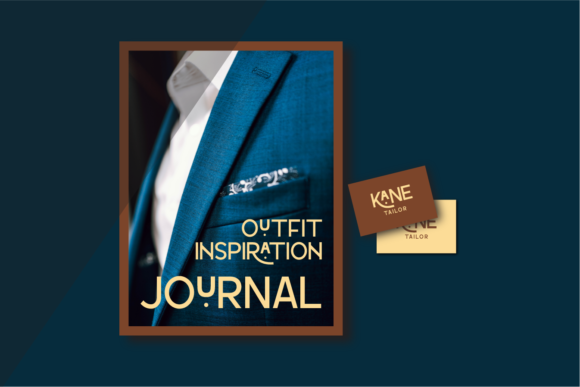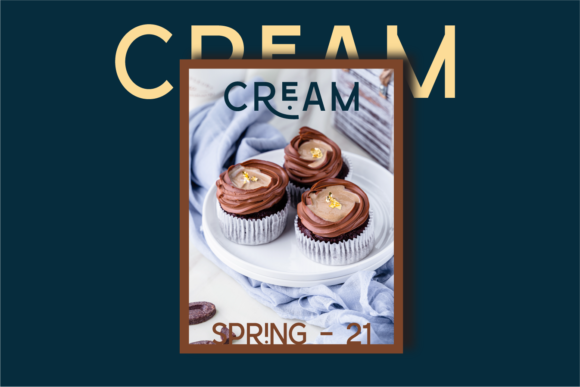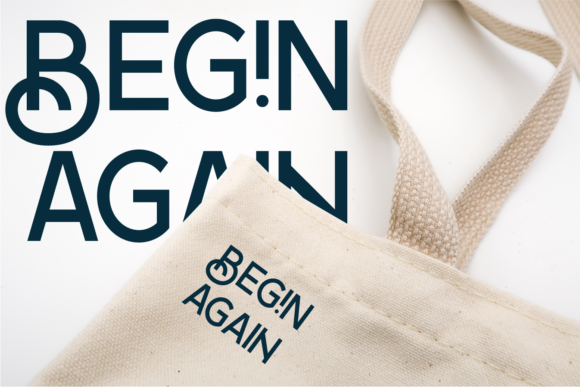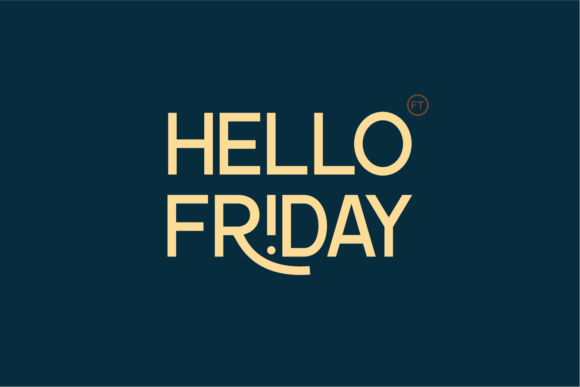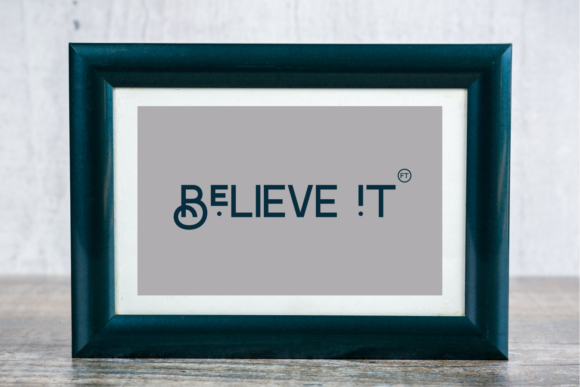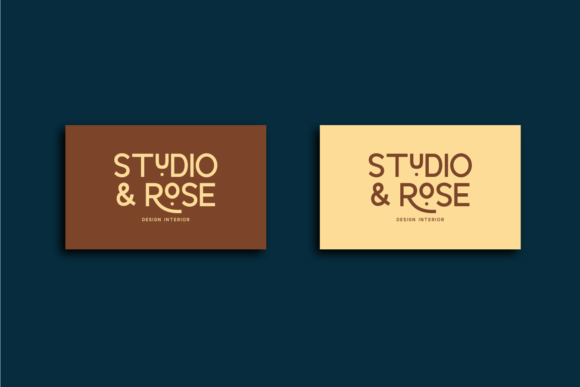
The Beriva Font: A Game-Changer for Creative Projects
Have you ever been in the middle of a design project, and suddenly, you’re stuck on finding the perfect font? I recall a particularly frustrating experience when I was working on a branding project for a local bakery. The client wanted a font that was both modern and earthy, but I just couldn’t seem to find the right fit. That’s when I stumbled upon the Beriva font, and let me tell you, it was a total game-changer! 🤩
What Makes Beriva Special?
Beriva is an organic and unique sans serif font that can easily be matched to an incredibly large set of projects. Its versatility is one of its standout features, making it perfect for a wide range of creative endeavors. Whether you’re a designer, crafter, or creative hobbyist, Beriva is sure to become a favorite in your font collection.
What I Love About Beriva ✨
- ✅ Its unique organic feel sets it apart from more traditional sans serif fonts
- ✅ The font is highly legible, even at smaller sizes
- ✅ Beriva comes with a range of OpenType features, including stylistic alternates and glyphs
- ✅ It’s perfect for both digital and print projects
While Beriva is an amazing font, there are a few things to keep in mind. For example, some of the more intricate glyphs can be a bit finicky when it comes to kerning. Additionally, the font doesn’t come with a built-in italic version, which may be a drawback for some users. 🤔
The Story Behind Beriva
Beriva was designed with the goal of creating a unique and versatile font that could be used in a wide range of creative projects. The designer wanted to create a font that was both modern and earthy, with a focus on legibility and style. The result is a font that’s perfect for designers, crafters, and creative hobbyists alike.
Q: What type of projects is Beriva best suited for?
A: Beriva is a versatile font that can be used in a wide range of projects, from branding and advertising to packaging and web design.
Q: Does Beriva come with a range of OpenType features?
A: Yes, Beriva comes with a range of OpenType features, including stylistic alternates and glyphs.
Q: Is Beriva easy to read?
A: Yes, Beriva is highly legible, even at smaller sizes, making it perfect for a wide range of applications.